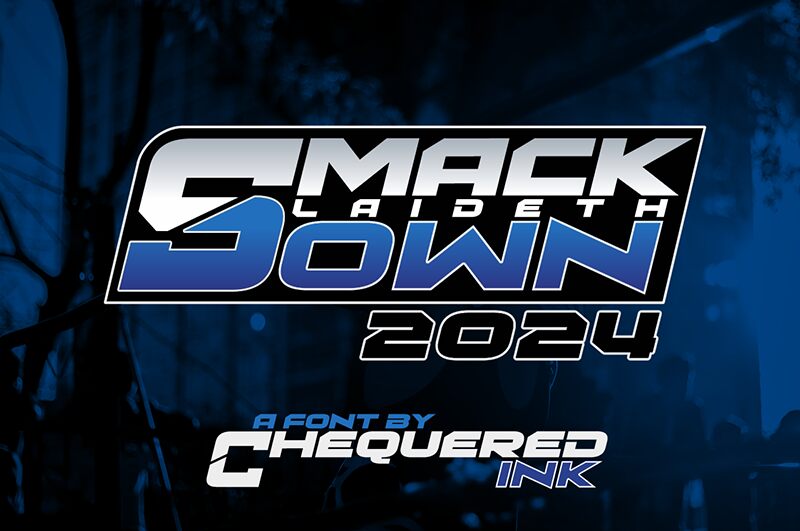
Smack Laideth Down 2024
Smack Laideth Down is a new font, and we are so excited to share it with you. It is a clean geometric font that brings a futuristic feeling to whatever project you use it with. It includes numbers, uppercase letters, punctuation marks and basic symbols. Make it a part of magazine ads, websites, logo designs, product packaging etc.
Inspired by the 2024 SmackDown logo.
Smack Laideth Down 2024 by Chequered Ink.